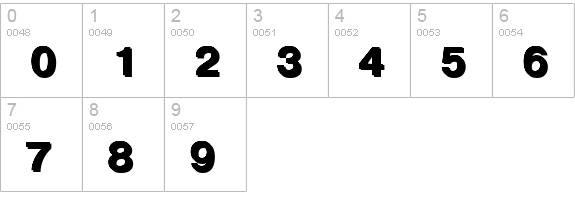
PragmaticaShadowC Bold Font Details
PragmaticaShadowC Bold is a strong, high-contrast variant in the PragmaticaShadowC typeface family \xE2\x80\x94 well suited to headlines, attention-grabbing titles, and strong calls-to-action.
PragmaticaShadowC Bold font is a modern and versatile typeface that exudes strength and sophistication. Its bold and sharp design makes it perfect for creating eye-catching headers, titles, and branding materials. The font strikes the perfect balance between professionalism and creativity, making it suitable for a wide range of design projects. The free version of PragmaticaShadowC Bold font is available for download at FontsMarket.com. This means that you can easily access and use this high-quality font without any cost. Whether you are a graphic designer, a content creator, or a business owner looking to elevate your brand, PragmaticaShadowC Bold font offers a unique and impactful design solution. With its bold presence and clean lines, PragmaticaShadowC Bold font is sure to make a statement in your designs. Download it for free today and unleash the power of this versatile typeface in your next project.